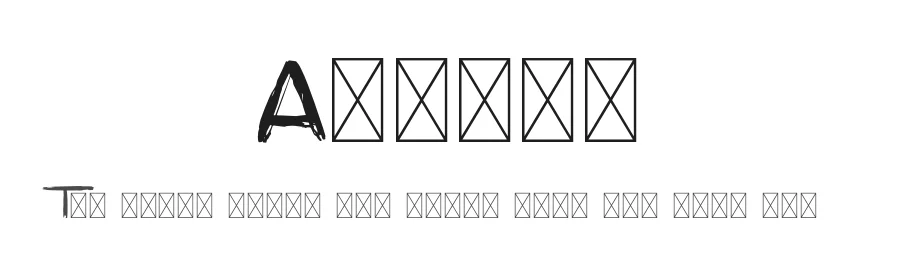
About Abuse Font
Abuse is a script & handwritten font designed by Damien Gosset. It includes 100 glyphs, a regular weight, TTF (TrueType) format, and 104 languages. Abuse is free to download; check the license details on this page before commercial use. Script & handwritten fonts like Abuse work best for wedding invitations, greeting cards, signatures, and elegant branding.
Abuse Font is a script font that shines as a display or heading face. Pair it with a clean sans-serif or serif font for body text β the contrast creates a clear hierarchy while the two styles stay balanced and easy to read.
Abuse Font
Abuse Font is a script handwritten typeface by Damien Gosset, ideal for logos, invitations, branding, and creative projects.